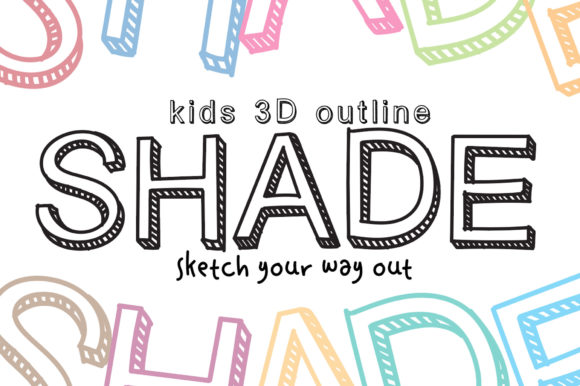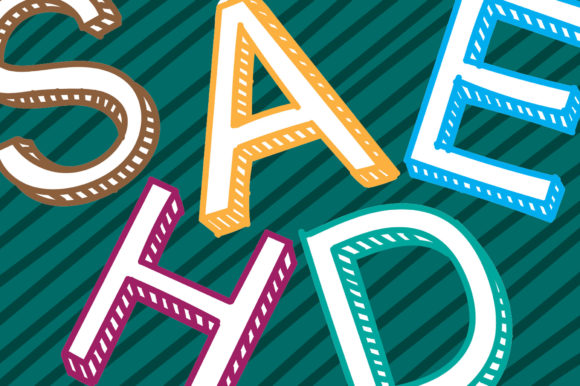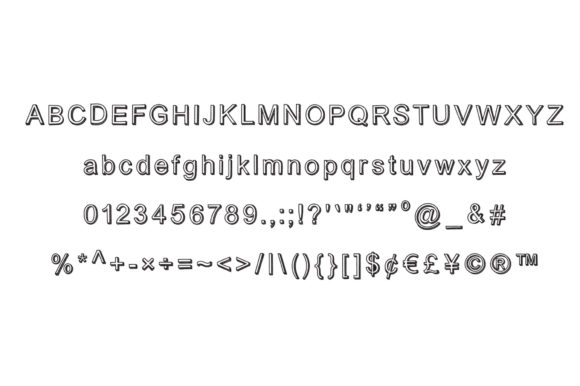
Kids 3D Outline Shade Font
Kids 3D Outline Shade is a fun, cartoon-like display font, that can be used for all chalkboard quotes or teaching material! Its authentic look will add a personal and realistic feel to your designs.